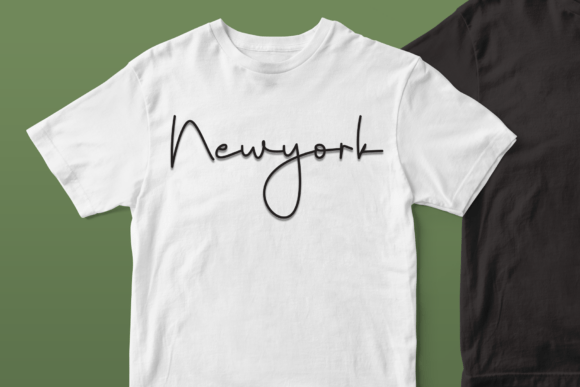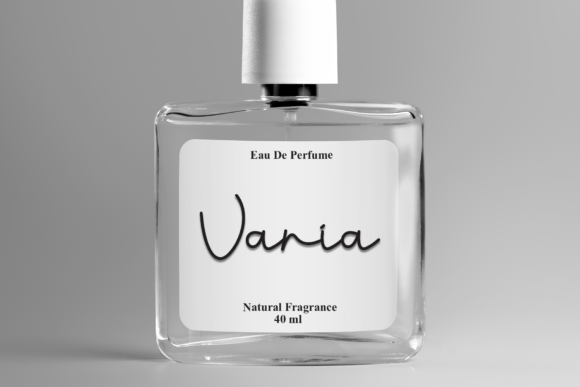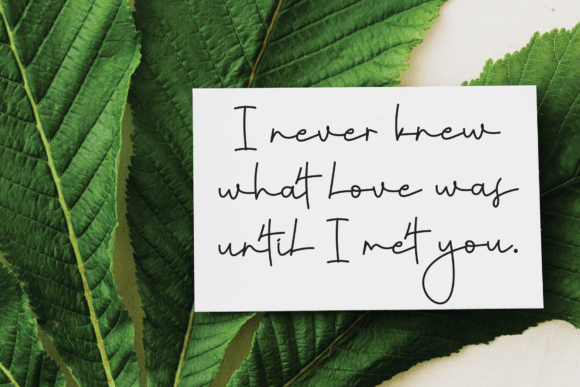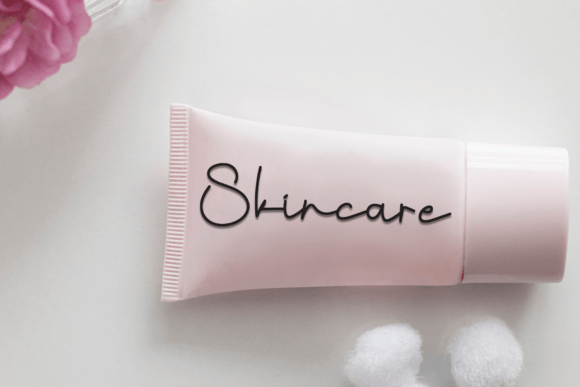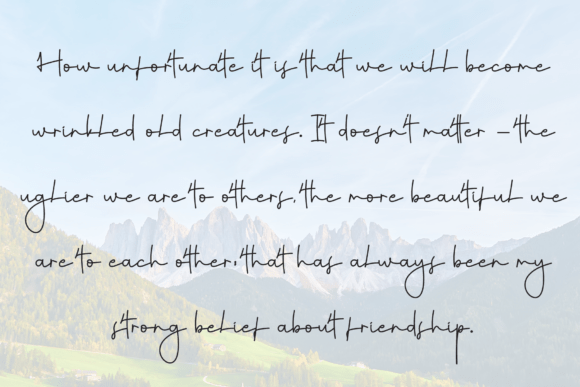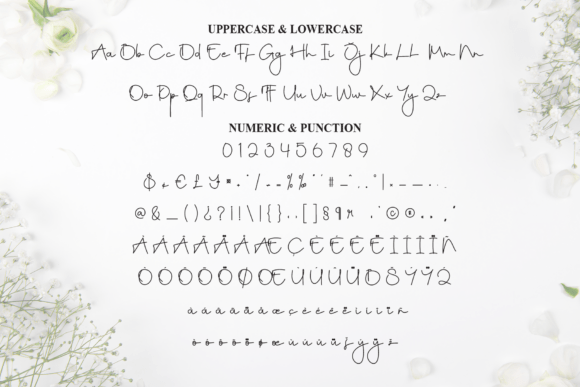
Introducing Anitha Font: Elevate Your Designs with Elegance and Creativity
Are you a designer, crafty individual, or a business owner looking for that special touch to make your projects stand out? Look no further than the Anitha Font, a unique and stylish addition to your creative arsenal. This extraordinary font is designed to provide you with an unparalleled experience, offering the latest in typographic design that is sure to captivate your audience.
Endless Possibilities with Anitha Font
The Anitha Font is not just any ordinary font; it’s a gateway to creating stunning visual content that speaks to elegance and sophistication. Whether you’re working on wall displays, wedding invitations, social media post logos, advertisements, product packaging, product designs, labels, photography, watermarks, invitations, stationery, or any project that demands tasteful handwriting, this font is your perfect companion.
Unleash Your Creativity
The Anitha Font is more than just a collection of letters; it’s a tool that unlocks your creative potential. Its unique style and flexibility make it an ideal choice for:
- Graphic Designers: Looking for a distinctive font to add a personal touch to their designs.
- Crafters: Creating handmade products that require a special and personalized look.
- Business Owners: Aiming to establish a strong brand identity through consistent and elegant branding.
- Social Media Influencers: Seeking to elevate their content with stylish text.
Why Choose Anitha Font?
In a world filled with generic fonts, the Anitha Font stands out for its unique style and versatility. Here are a few reasons why it’s a must-have for your creative projects:
- Unique Style: Offers a fresh and modern look that will set your projects apart.
- High-Quality: Professionally crafted to ensure clarity and readability.
- Multipurpose: Suitable for a wide range of applications, from digital to print.
Elevate your designs and projects with the Anitha Font, a creative and stylish solution that promises to deliver an extraordinary experience. With its unique style, compatibility with major design software, and ease of use, it’s an invaluable asset for designers, crafters, and businesses alike. Say goodbye to generic fonts and hello to a world of creative possibilities with the Anitha Font.